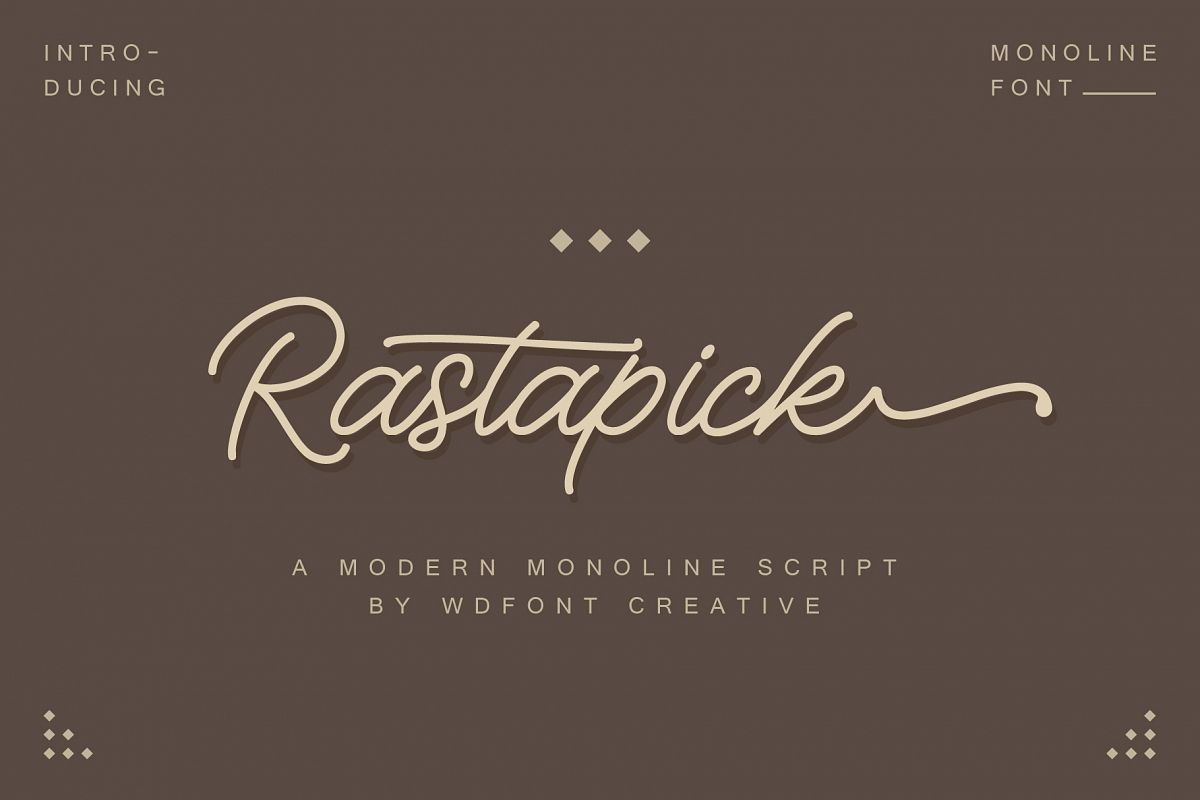
Rastapick
Rastapick is a font with modern monoline style and very suitable for your daily use. You can use it for branding, poster, logo, signature, t-shirt design, social media post and many more.
The alternative characters were divided into several Open Type features such as Swash, Stylistic Sets, Stylistic Alternates, Contextual Alternates. The Open Type features can be accessed by using Open Type savvy programs such as Adobe Illustrator, Adobe InDesign, Adobe Photoshop Corel Draw X version, And Microsoft Word. And this Font has given PUA unicode (specially coded fonts). so that all the alternate characters can easily be accessed in full by a craftsman or designer.